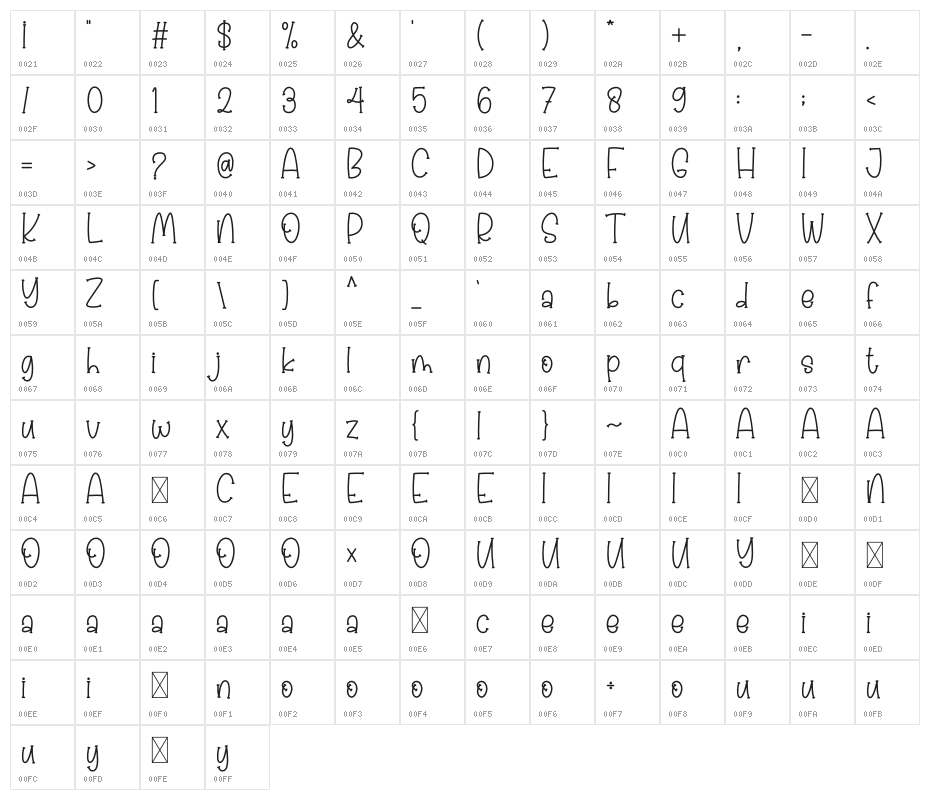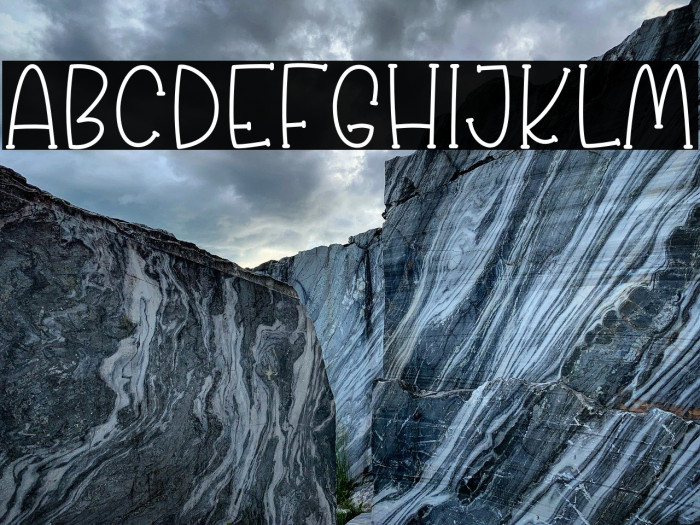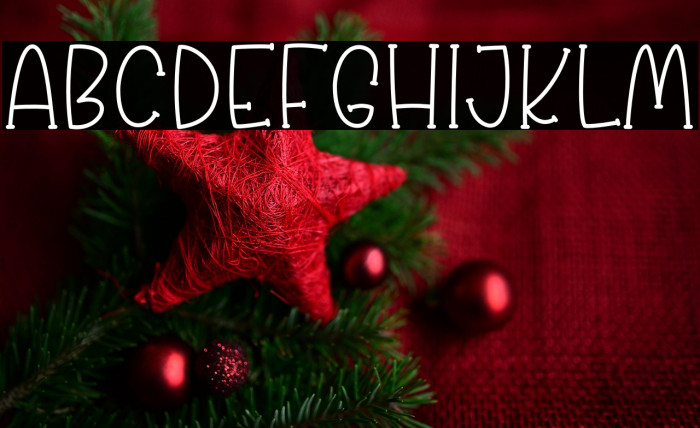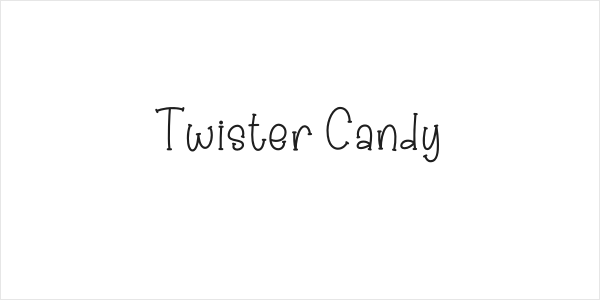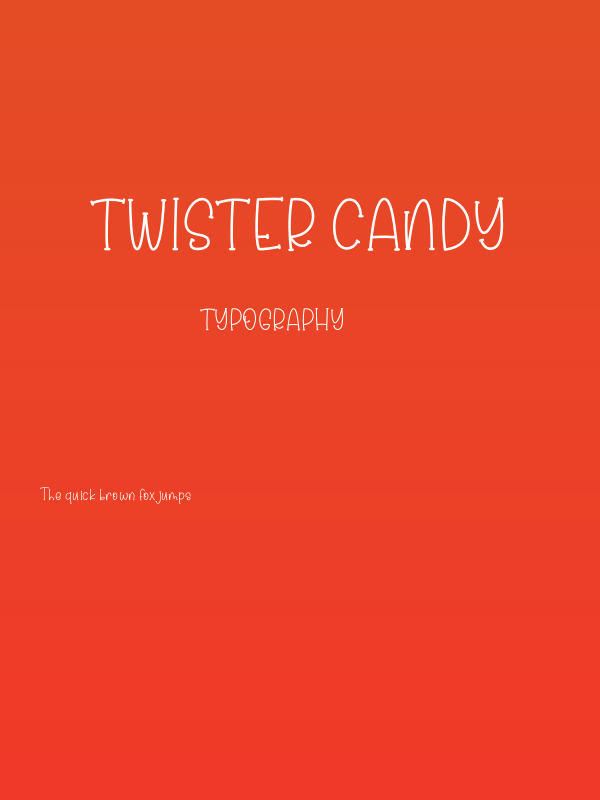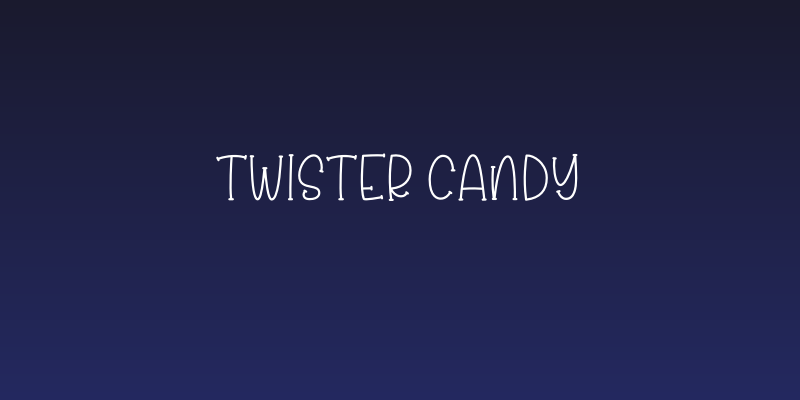
Twister Candy Font
Twister Candy Description
This playful and whimsical font features a hand-drawn style with a slight twist in its characters, giving it a unique and lively appearance. The letters are slightly irregular, adding to its charm and making it ideal for creative projects. The uppercase and lowercase letters maintain a consistent style, with rounded edges and a casual feel. Numbers and special characters are included, matching the overall playful aesthetic. The font's design is reminiscent of a child's handwriting, making it perfect for projects that require a fun and informal touch.
| Proposed Projects | Ideal for children's books, playful invitations, greeting cards, and creative branding projects. |